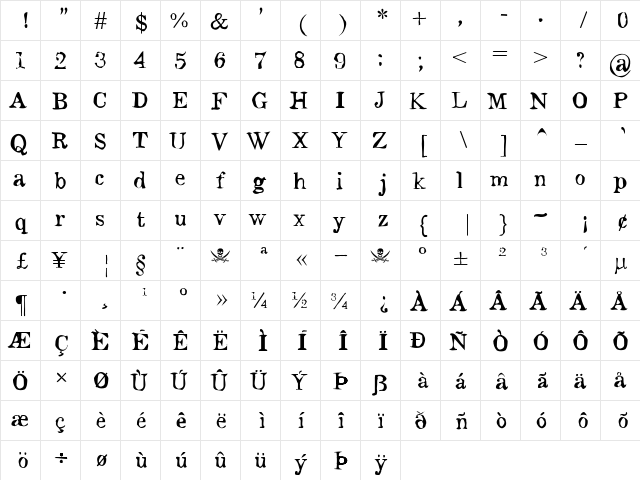
Monteiro Lobato Regular
| Foundry | Daniel Poeira |
| Designer | Daniel Poeira |
Design Context for Monteiro Lobato Typeface
Monteiro Lobato is a composed and adaptable typeface that performs quietly and consistently across a wide range of design contexts.